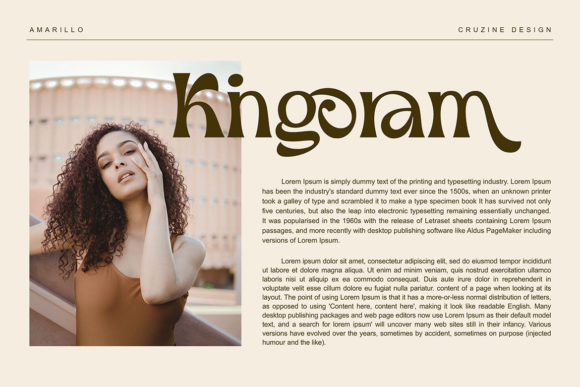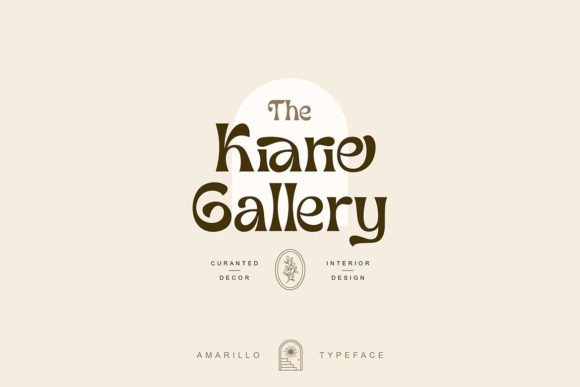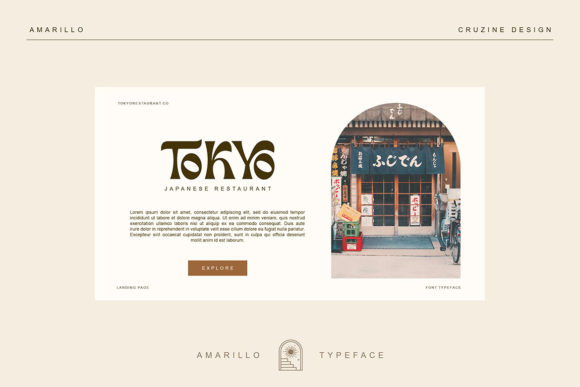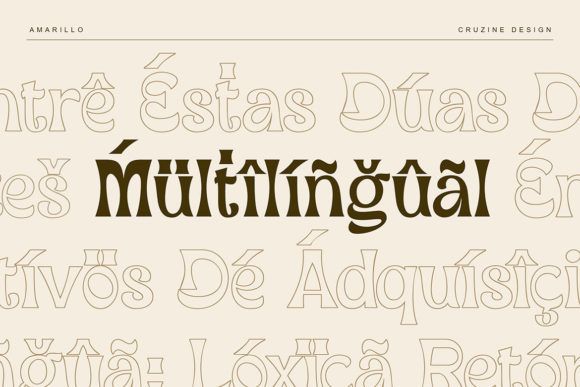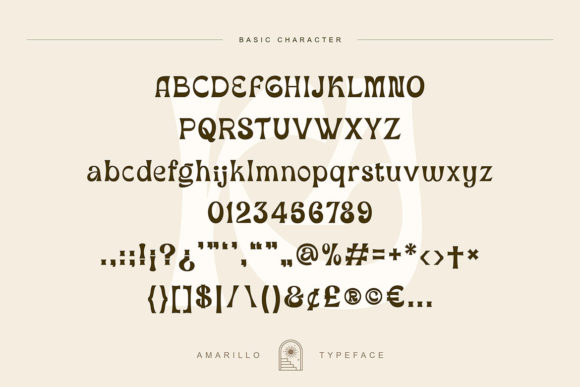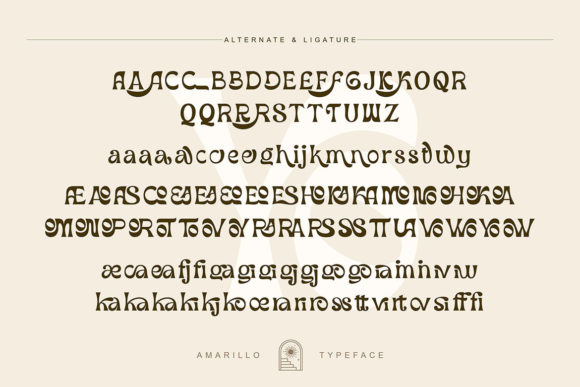
Introducing Amarillo Font: Elevate Your Designs with Style and Elegance
Are you on the hunt for a font that can add a touch of sophistication and trendiness to your designs? Look no further than Amarillo Font. This stylish and elegant serif font is perfect for designers and crafters who want to take their creations to the next level. In this article, we’ll dive into the features and benefits of Amarillo Font, and explore how it can help you achieve your design goals.
What is Amarillo Font?
Amarillo Font is a beautifully crafted serif font that exudes style and sophistication. Its elegant lines and classic design make it perfect for a wide range of design projects, from logos and branding to packaging and advertising. Whether you’re a professional designer or a DIY crafter, Amarillo Font is sure to impress.
One of the standout features of Amarillo Font is its PUA (Private Use Area) encoding. This means that you can access all of the font’s glyphs and swashes with ease, giving you maximum flexibility and creative control. With PUA encoding, you can easily insert special characters, ligatures, and other design elements into your text, allowing you to create unique and eye-catching designs.
Key Features of Amarillo Font
- Stylish and trendy design: Amarillo Font boasts a modern and elegant design that’s sure to turn heads.
- PUA encoded: Easy access to glyphs and swashes for maximum creative control.
- Serif font: Classic design with a touch of sophistication.
- Multipurpose: Suitable for a wide range of design projects, from logos and branding to packaging and advertising.
Benefits of Using Amarillo Font
So why choose Amarillo Font for your design projects? Here are just a few benefits you can expect:
- Elegance and sophistication: Amarillo Font adds a touch of class and refinement to any design.
- Versatility: With its PUA encoding and range of glyphs and swashes, Amarillo Font can be used in a wide range of design projects.
- Unique designs: With Amarillo Font, you can create truly unique and eye-catching designs that set you apart from the competition.
Tips and Tricks for Getting the Most Out of Amarillo Font
Here are a few tips and tricks to help you get the most out of Amarillo Font:
- Experiment with different sizes and colors: Amarillo Font looks great in a range of sizes and colors, so don’t be afraid to experiment.
- Mix and match glyphs and swashes: With PUA encoding, you can easily combine different glyphs and swashes to create a unique look.
- Use it in combination with other fonts: Amarillo Font pairs well with a range of other fonts, so try combining it with other styles to create a unique look.
In conclusion, Amarillo Font is a stylish and trendy serif font that’s perfect for designers and crafters who want to elevate their designs. With its PUA encoding and range of glyphs and swashes, it’s easy to use and offers maximum creative control. Whether you’re looking to create elegant and sophisticated designs or bold and eye-catching ones, Amarillo Font is the perfect choice.